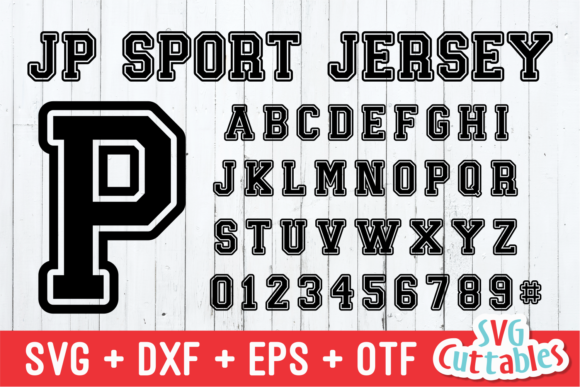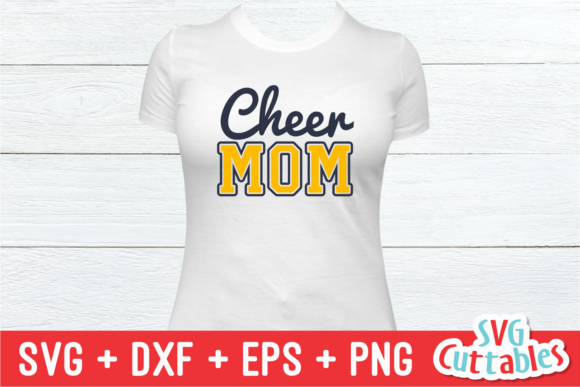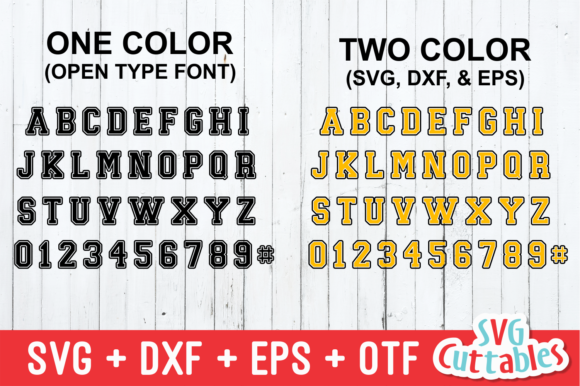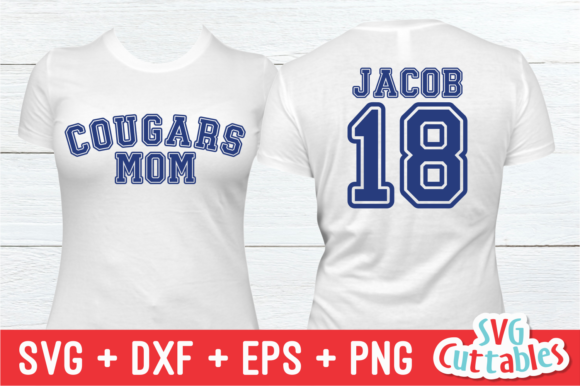
JP Sport Jersey Font
About the JP Sport Jersey Font
We are excited to introduce JP Sport Jersey Font, a must-have typeface for any serious designer. JP Sport Jersey is a fun and bold slab serif font. Whether you’re using it for crafts, digital design, presentations, or making greeting cards, this font has the potential to become your favorite go-to font, no matter the occasion!
JP Sport Jersey’s bold slab serifs are ideally suited for headlines, short impactful statements, and branding applications where a strong, energetic presence is desired. It works exceptionally well on posters, sportswear logos, and packaging for active lifestyle products. However, its weight and strong character make it less suitable for body text or long paragraphs, and it might appear overwhelming in UI contexts.
Consider pairing JP Sport Jersey with a clean sans-serif like Open Sans for body copy to create a balanced visual hierarchy. For a more playful design, a rounded geometric sans-serif such as Circular Std would also complement its bold personality. Avoid pairing it with overly ornate script fonts; a simple, neutral serif like Lora could work for supporting text if a more traditional feel is required.
The overall personality of JP Sport Jersey is bold, energetic, and friendly, lending itself to brands focused on sport, leisure, and youthful dynamism. Its high contrast and confident forms communicate strength and approachability.
JP Sport Jersey Font Usage Examples
JP Sport Jersey Font Example